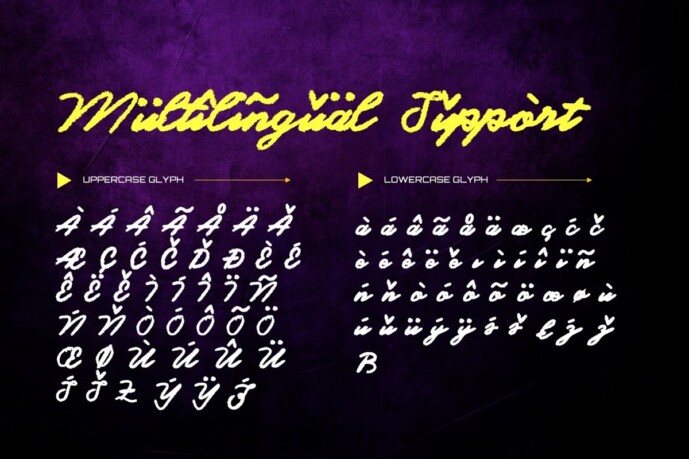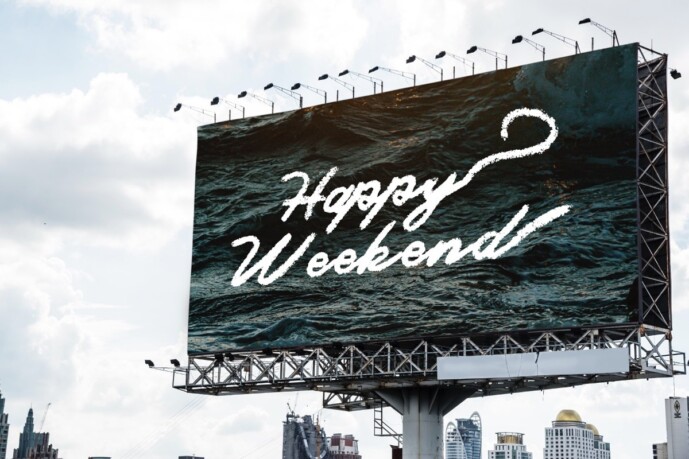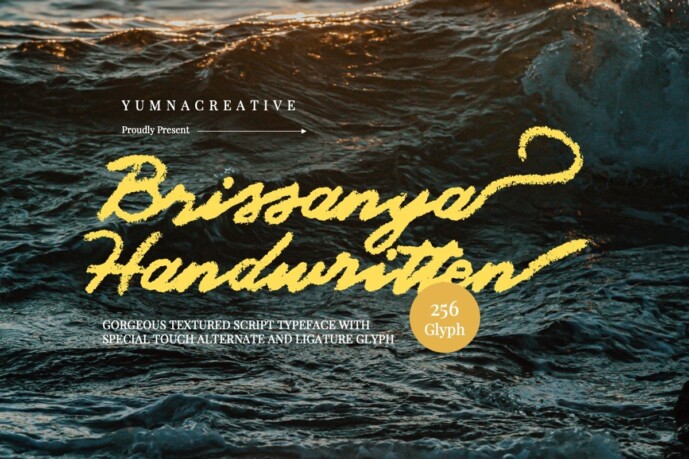
Brissanya Font
Brissanya Font – Textured Brush Font.This Font is a delicate, elegant and flowing handwritten font. It has beautiful and well as a unique blend of ligatures a letter, so that the authors compose it with a and little swirly embedding, so that a modern font is formed and ready to make a statement by adding elegant and unique flair to your next design project. Add it to your most creative ideas and notice how it makes them come alive!
This Font can be used for various purposes such as Magazine Title, Poster, Logo, T-Shirt, Sub Title, Business cards, Magazines, Book Covers, Wedding Invitations,Templates Instagram Story Post, Greeting Cards, Quotes, etc.